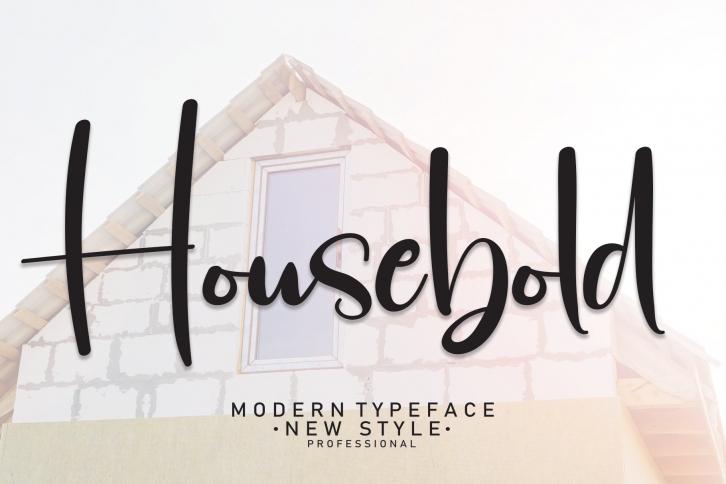
Housebold is a beautiful font that was designed by Scratchones. It's a great choice for designers and creatives who need such a font. It was released on September 24, 2022 and the file size is 2.64 MB. Housebold may give a more youthful, expressive and casual look to your project. It is a very beautiful, refined, elegant, and high-quality font.